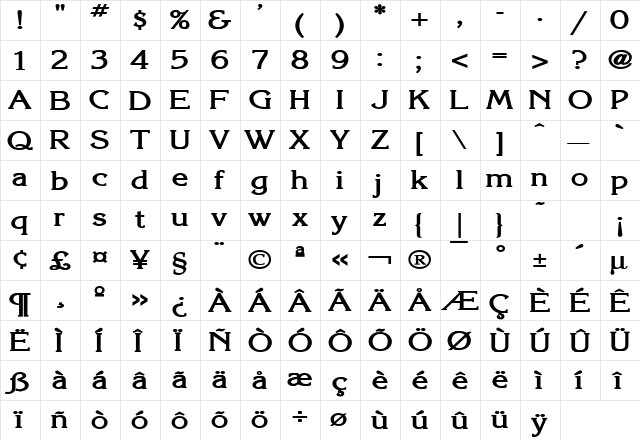
Keira Wide Bold
Design Context for Keira Wide Typeface
Keira Wide is a composed and adaptable typeface that performs quietly and consistently across a wide range of design contexts. The heavy weight commands attention and anchors typographic hierarchies.